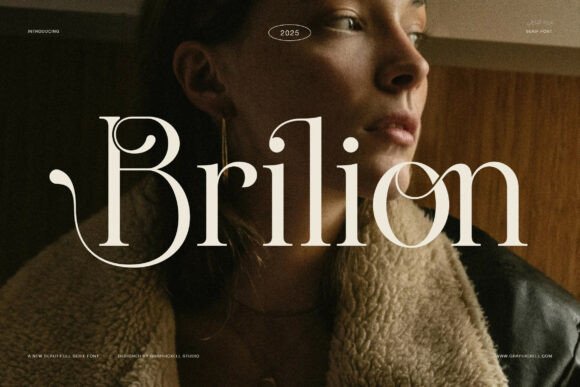
Brilion Font: A Timeless Typeface for Elegant Designs
Brilion is a beautiful, serif typeface that effortlessly blends classic beauty with modern simplicity. Its smooth lines, gentle curves, and clean structure make it an ideal choice for adding a touch of luxury to any design. The balanced look of Brilion font ensures that it fits perfectly in a variety of applications, including branding, wedding stationery, magazines, and product packaging.
Key Features of Brilion Font
- Smooth Lines and Gentle Curves: Brilion’s design is characterized by smooth lines and gentle curves, which give it a soft and polished feel.
- Balanced Look: The font’s balanced look makes it suitable for a wide range of applications, from elegant wedding stationery to sophisticated branding and advertising.
- Elegant yet Readable: The subtle contrast between thin and thick strokes makes Brilion elegant yet easy to read, making it perfect for both long text and big titles.
The Design Elements of Brilion Font
Every letter in Brilion has a natural rhythm that feels soft and polished. The smooth flow between thin and thick strokes makes it elegant yet easy to read. The subtle contrast gives it personality without looking heavy, making it perfect for a wide range of design applications.
The font’s design elements include:
- Uppercase and Lowercase Letters: Brilion includes a full set of uppercase and lowercase letters, making it suitable for a wide range of design applications.
- Numbers and Punctuation: The font also includes numbers and punctuation, ensuring that you have everything you need to create professional-looking designs.
- Stylish Alternates: Brilion offers stylish alternates, giving you the flexibility to create unique and creative designs.
- Ligatures and Multilingual Support: The font features ligatures and multilingual support, making it perfect for use in a variety of creative projects.
Use Cases for Brilion Font
Brilion font is a versatile typeface that can be used in a wide range of design applications, including:
- Branding: Brilion’s elegant and sophisticated design makes it perfect for use in branding and advertising.
- Wedding Stationery: The font’s romantic and elegant feel makes it ideal for use in wedding stationery, including invitations, menus, and programs.
- Magazines and Editorials: Brilion’s readability and elegance make it perfect for use in magazines and editorials.
- Product Packaging: The font’s clean and sophisticated design makes it suitable for use in product packaging, adding a touch of luxury to any product.
Typography Tips for Using Brilion Font
- Use it as a Headline Font: Brilion’s elegance and sophistication make it perfect for use as a headline font.
- Pair it with a Sans-Serif Font: Pairing Brilion with a sans-serif font can create a beautiful contrast and add visual interest to your design.
Brilion font is a beautiful, serif typeface that offers a perfect blend of timeless beauty and modern simplicity. Its smooth lines, gentle curves, and clean structure make it an ideal choice for adding a touch of luxury to any design. With its balanced look, elegant design elements, and versatility, Brilion font is perfect for use in a wide range of design applications.